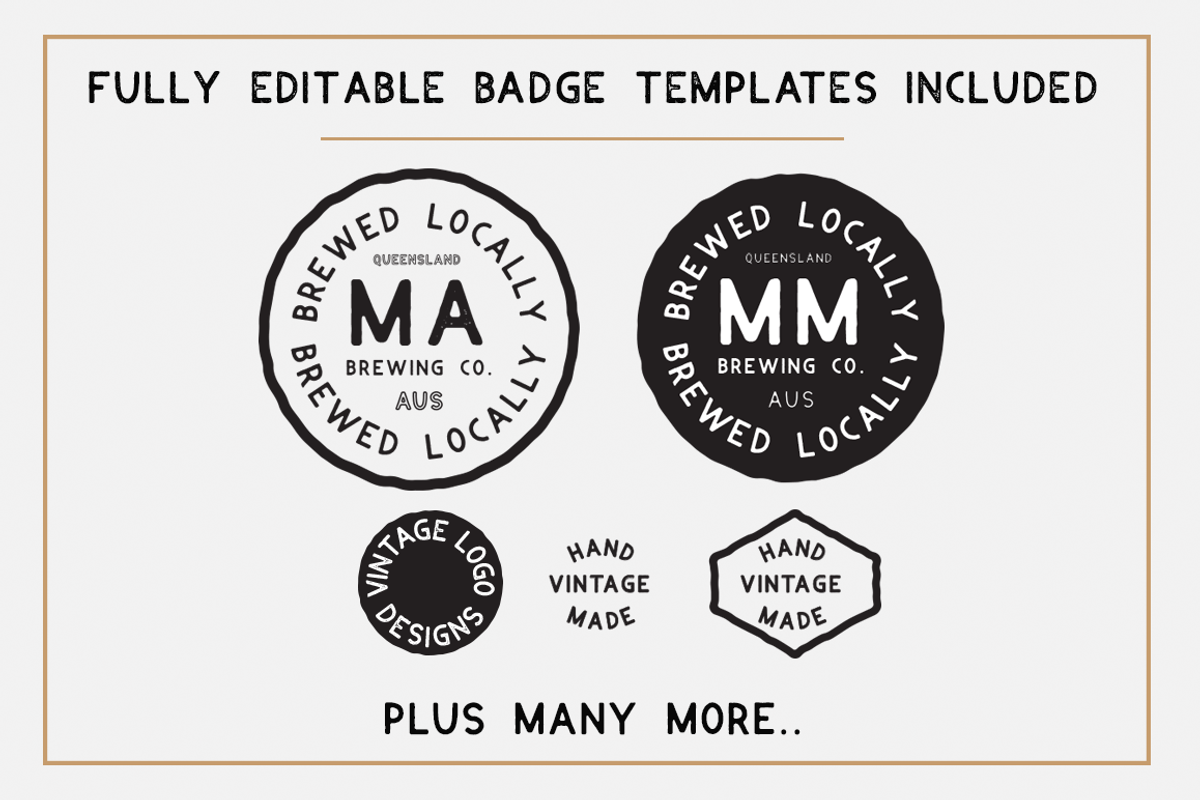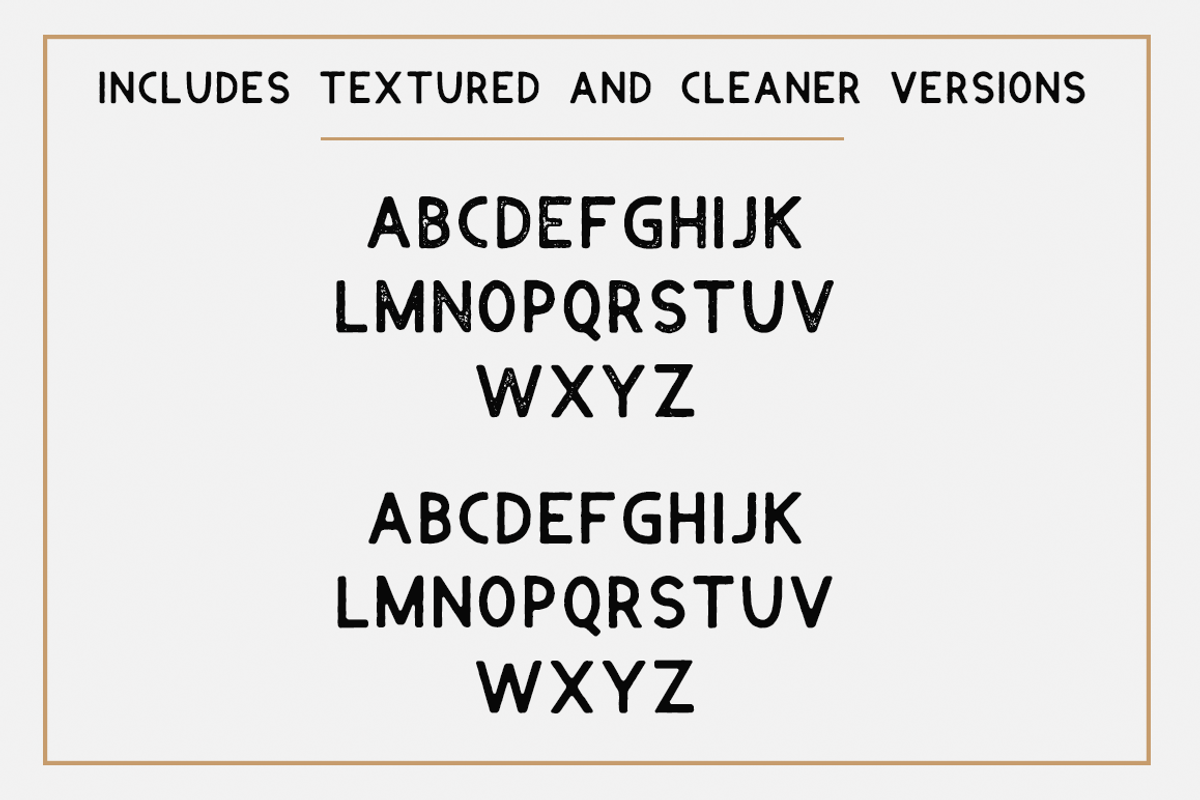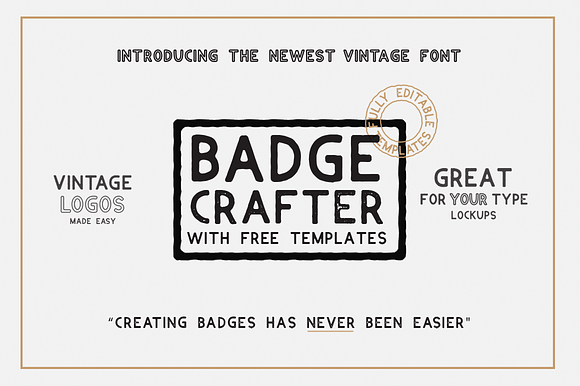
BADGE CRAFTER (Font + LOGO templates
BADGE CRAFTER is my newest font, it's bold, gritty, vintage and is perfect for creating badges and logo designs!
- The font already includes numbers and a bunch of symbols & punctuation, but you can expect more very soon!
BADGE CRAFTER (Font + LOGO templates by Mark Richardson fits naturally into Branding, posters, packaging, typography.